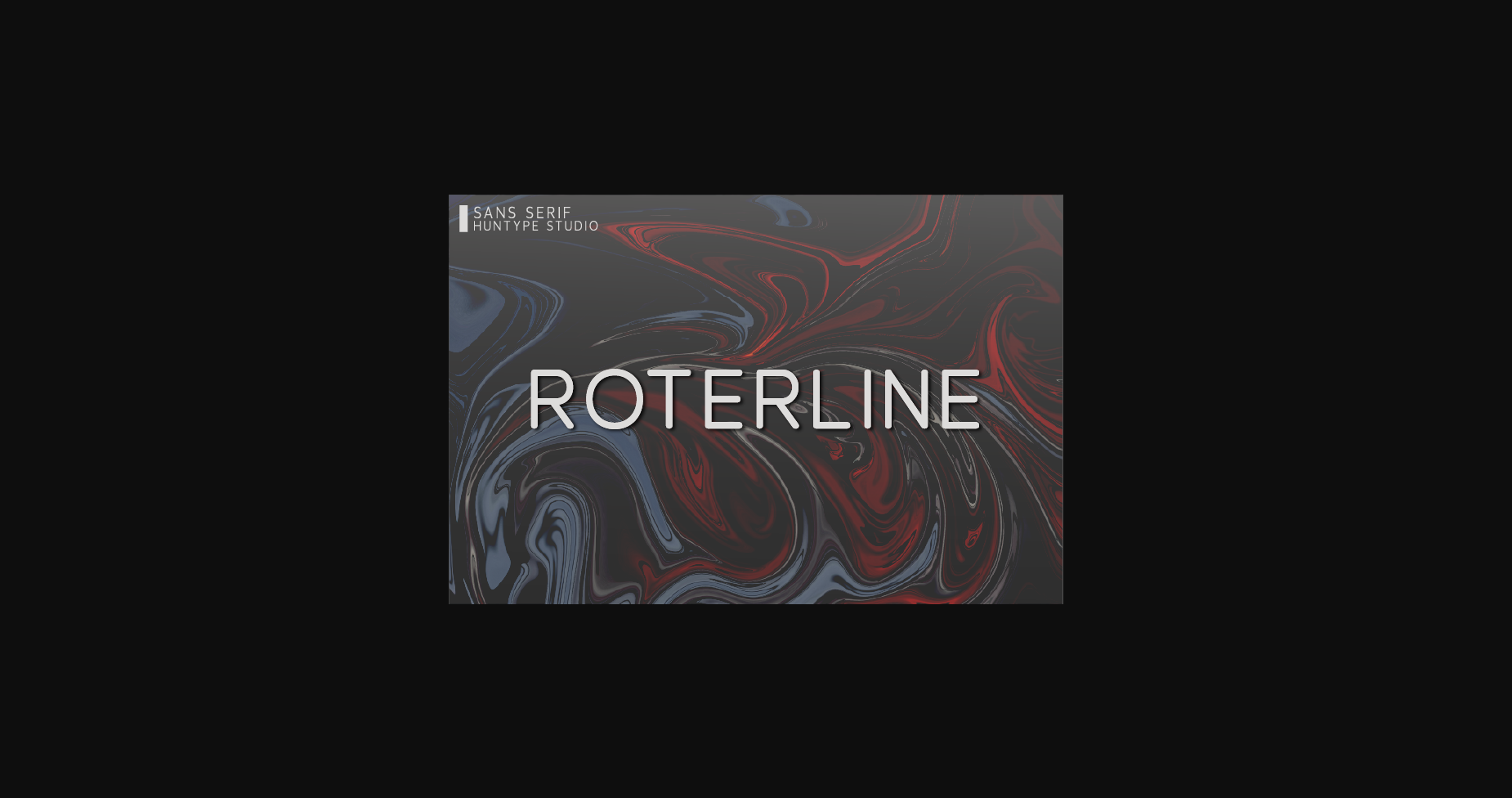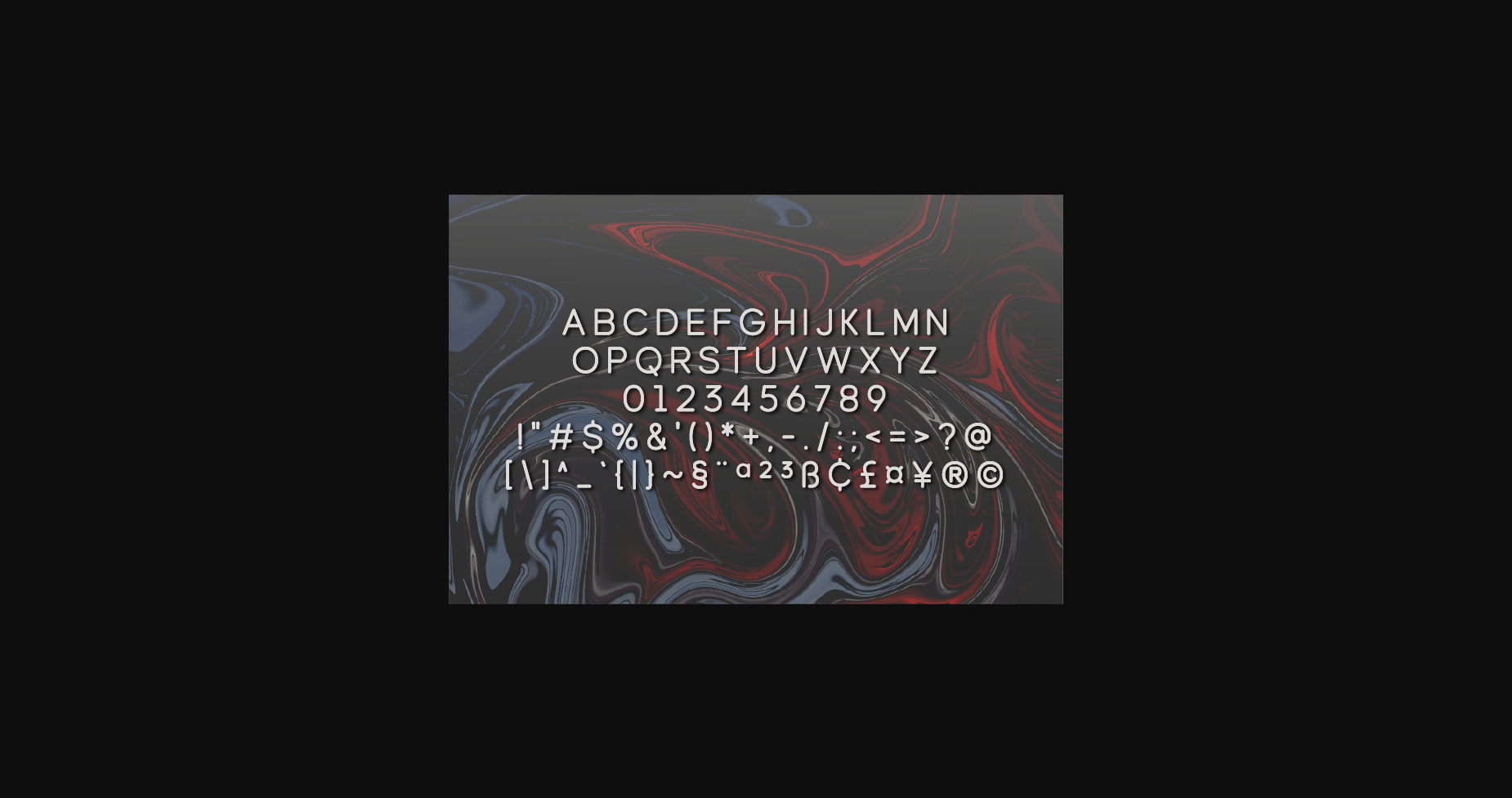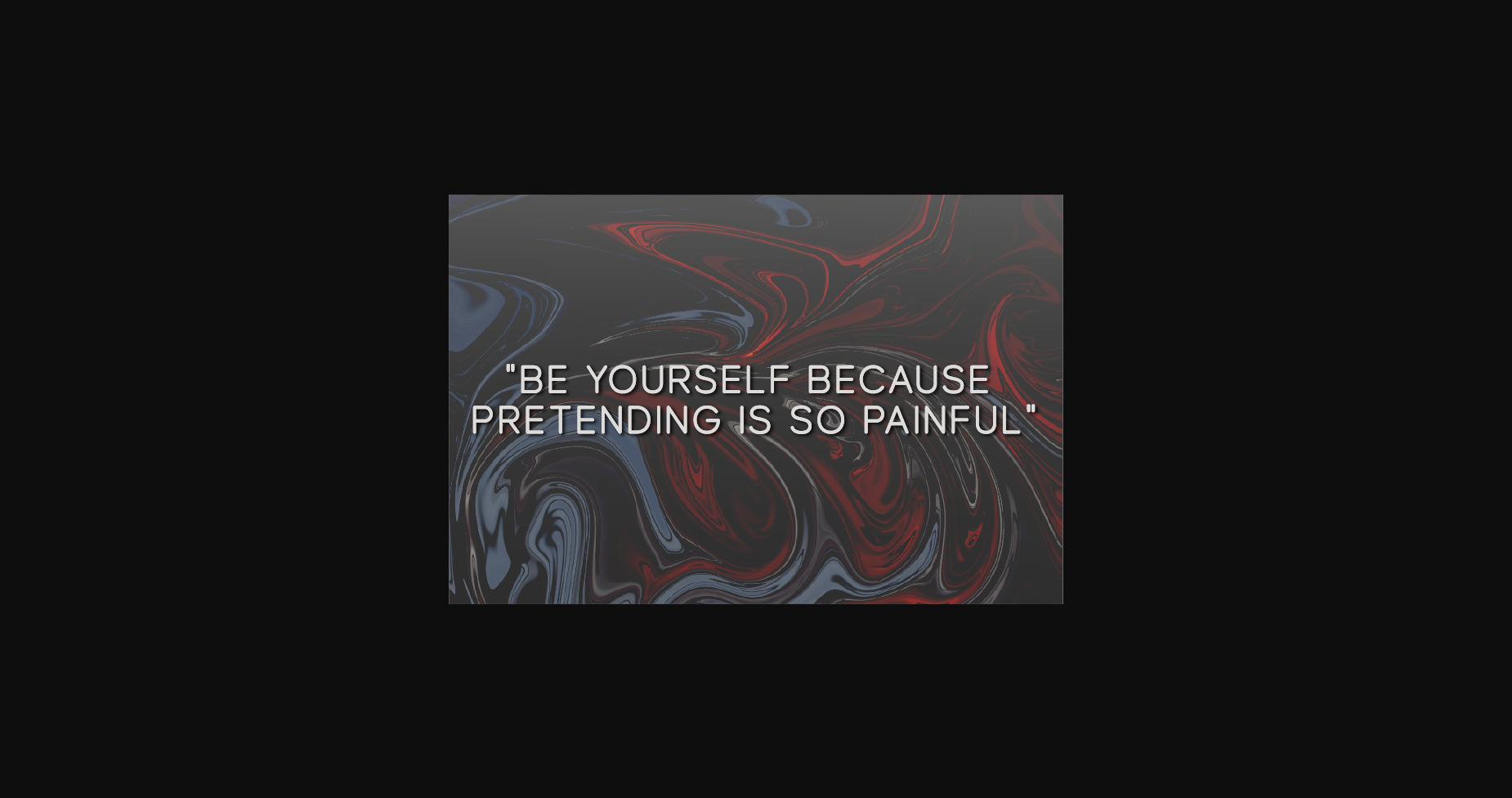
Roterline Font
About Roterline Font
Roterline is a thin lettered and simple sans serif font. With smooth and clean lines, this font works beautifully for logos, branding, and web headings.